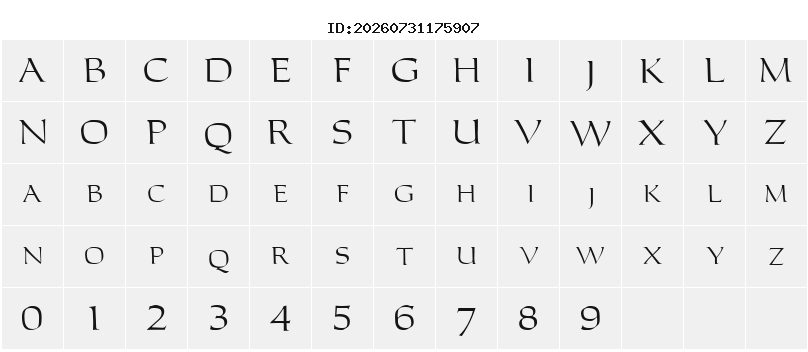
• Font Name: Leigh
Leigh.ttf is a modern, elegant sans-serif font designed for ultimate readability and visual harmony. Perfect for branding, headlines, web design, and print materials.